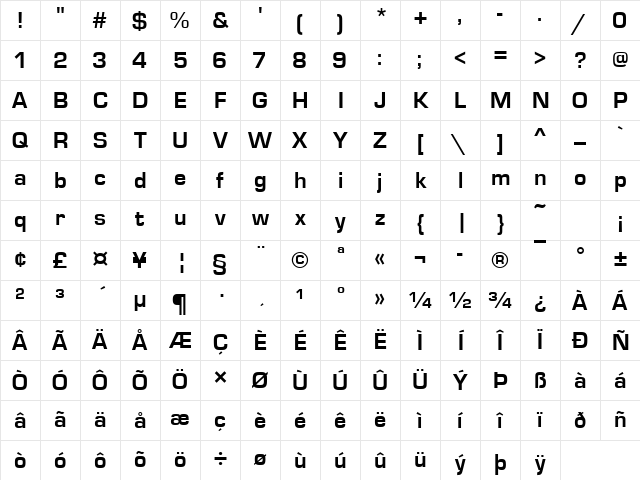
Complete Eurostile Becker Bold glyph index. Displaying only characters natively supported by Eurostile Becker Bold font.
Eurostile Becker is a composed and adaptable typeface that performs quietly and consistently across a wide range of design contexts. Its bold stroke weight gives it real presence on the page.